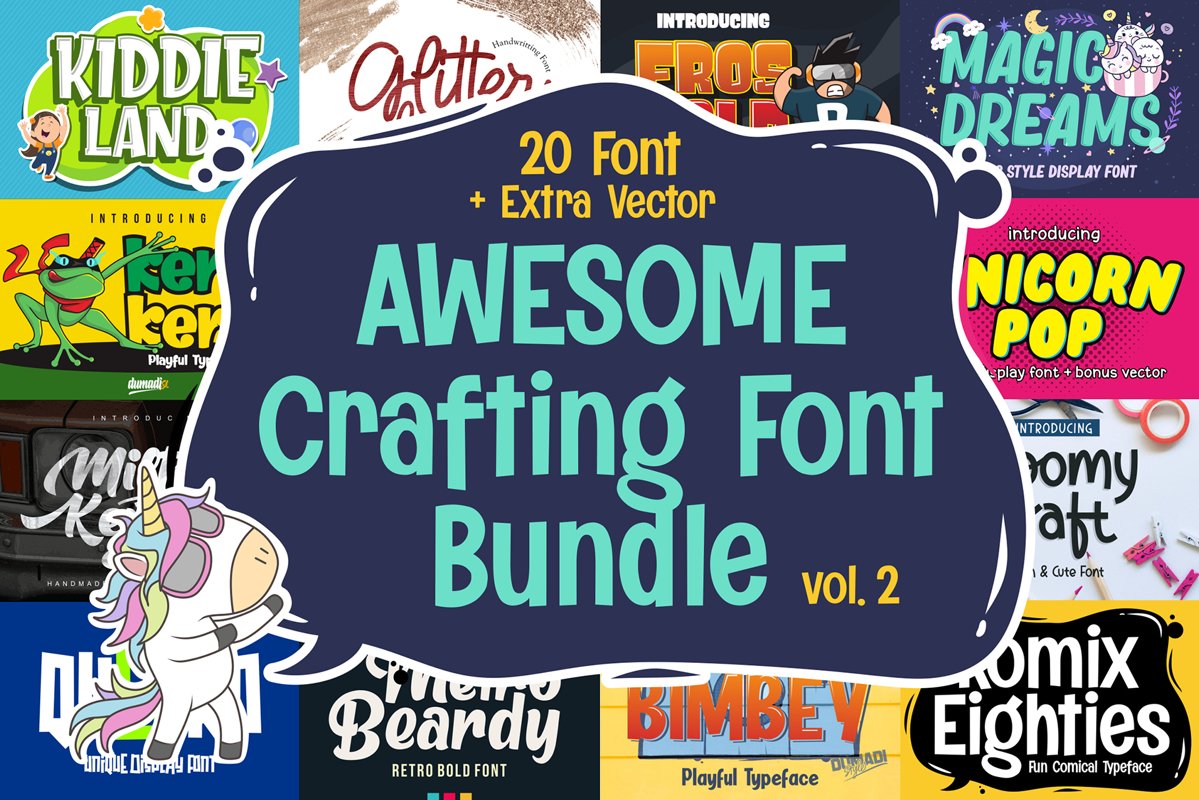
Awesome Crafting Font Bundle Vol. 2
We've handpicked a unique selection for this special bundle.
It does not include ALL of our fonts - just a mix of different styles of our awesome crafting display font!
- Anarchy Brothers (https://fontbundles.net/figuree/514929-anarchy-brothers)
- Bimbey (https://fontbundles.net/dumadistyle/457821-bimbey)
- Fros Bold (https://fontbundles.net/dumadistyle/511415-fros-bold)
- Gabrietha (https://fontbundles.net/figuree/442407-gabrietha)
- Glitter Lovers (https://fontbundles.net/figuree/436476-glitter-lovers)
- Kero-kero (https://fontbundles.net/dumadistyle/518030-kero-kero)
- Khaleiyfa (https://fontbundles.net/figuree/461676-khaleiyfa)
- Kiddie Land (https://fontbundles.net/figuree/513921-kiddie-land)
- Komix Eighties (https://fontbundles.net/figuree/576804-komix-eighties)
- King Of Monster (https://fontbundles.net/dumadistyle/557174-king-of-monster)
- Magic Dreams (https://fontbundles.net/figuree/531669-magic-dreams)
- Marlina (https://fontbundles.net/dumadistyle/408610-marlina)
- Metro Beardy (https://fontbundles.net/figuree/541242-metro-beardy)
- Milton Keynes (https://fontbundles.net/dumadistyle/562150-milton-keynes)
- Moomycarft (https://fontbundles.net/dumadistyle/539394-moomycraft)
- Qubiko (https://fontbundles.net/figuree/514301-qubiko)
- Relaxnes (https://fontbundles.net/dumadistyle/572587-relaxnes)
- Shatomi (https://fontbundles.net/dumadistyle/561690-shatomi)
- The Beauty (https://fontbundles.net/dumadistyle/555888-the-beauty)
- Unicorn Pop (https://fontbundles.net/figuree/265296-unicorn-pop)
This bundle is perfect for something that carries cartoon themes, children's books, funny greeting cards, food package designs, simple logotype, t-shirt design, bottle label, games application name, vintage poster or abstract images, and many more.